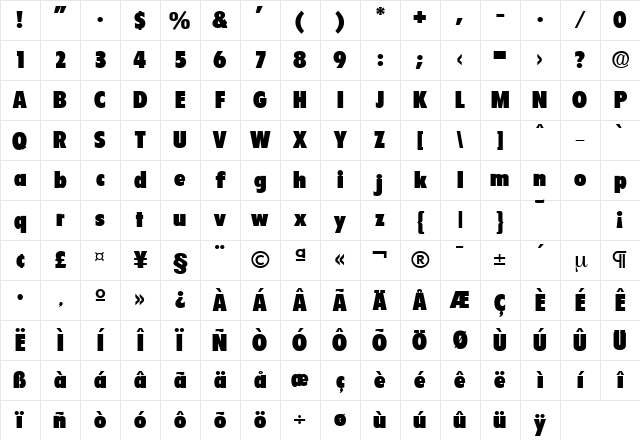
Florida-Serial-Black Extra Heavy
Style: Extra Heavy
Florida-Serial-Black Family
Complete Florida-Serial-Black Extra Heavy glyph index. Displaying only characters natively supported by Florida-Serial-Black Extra Heavy font.
Design Context for Florida-Serial-Black
Florida-Serial-Black is a composed and adaptable typeface that performs quietly and consistently across a wide range of design contexts.